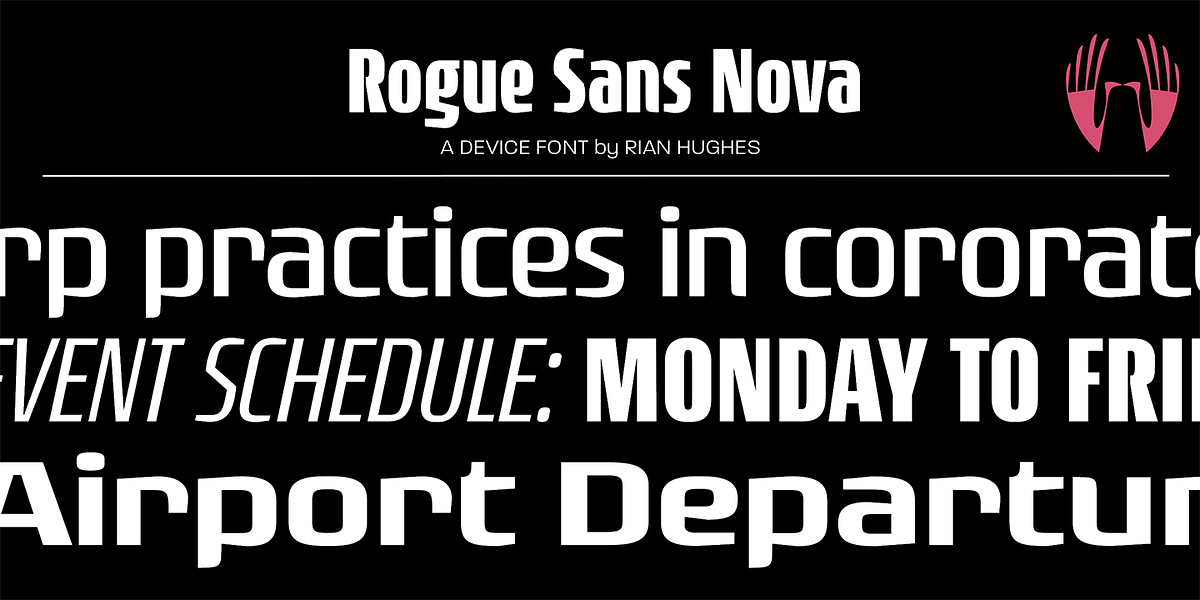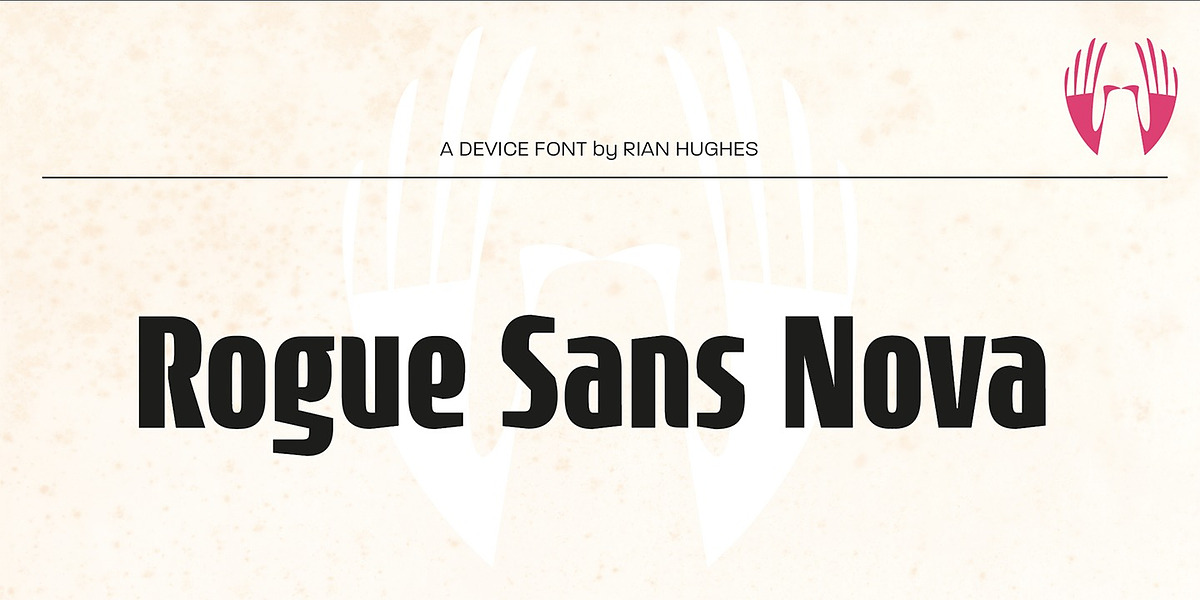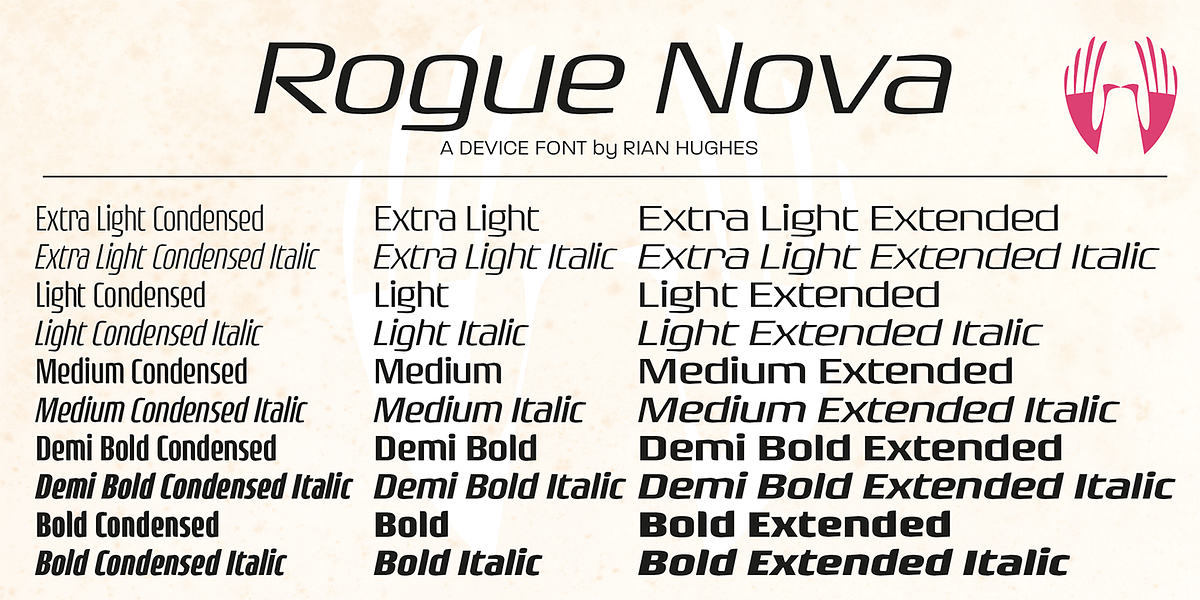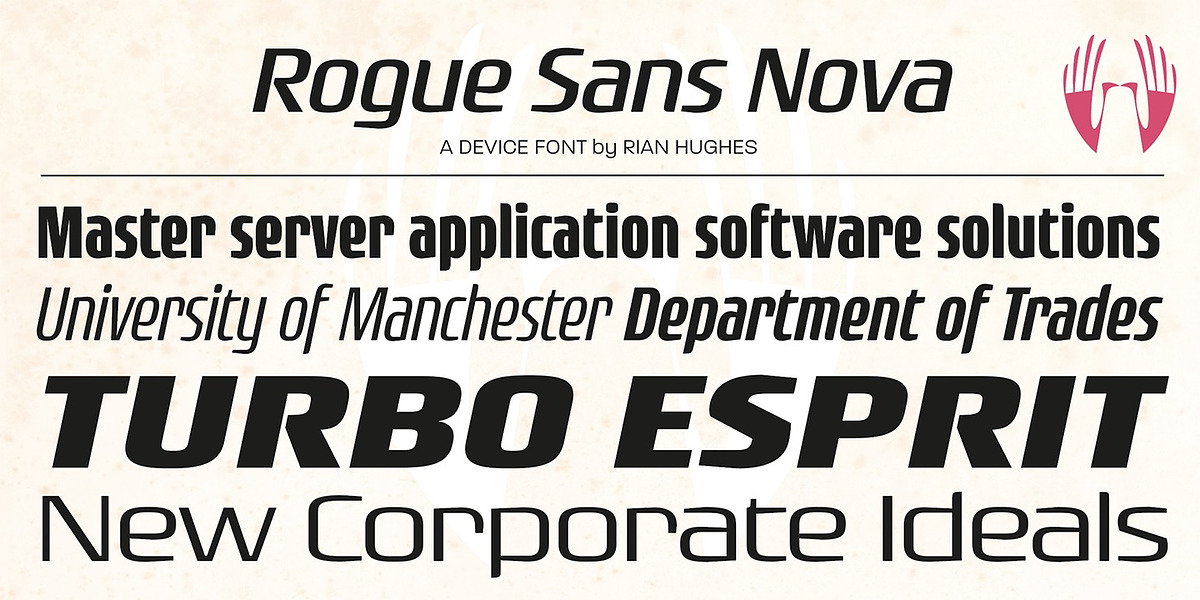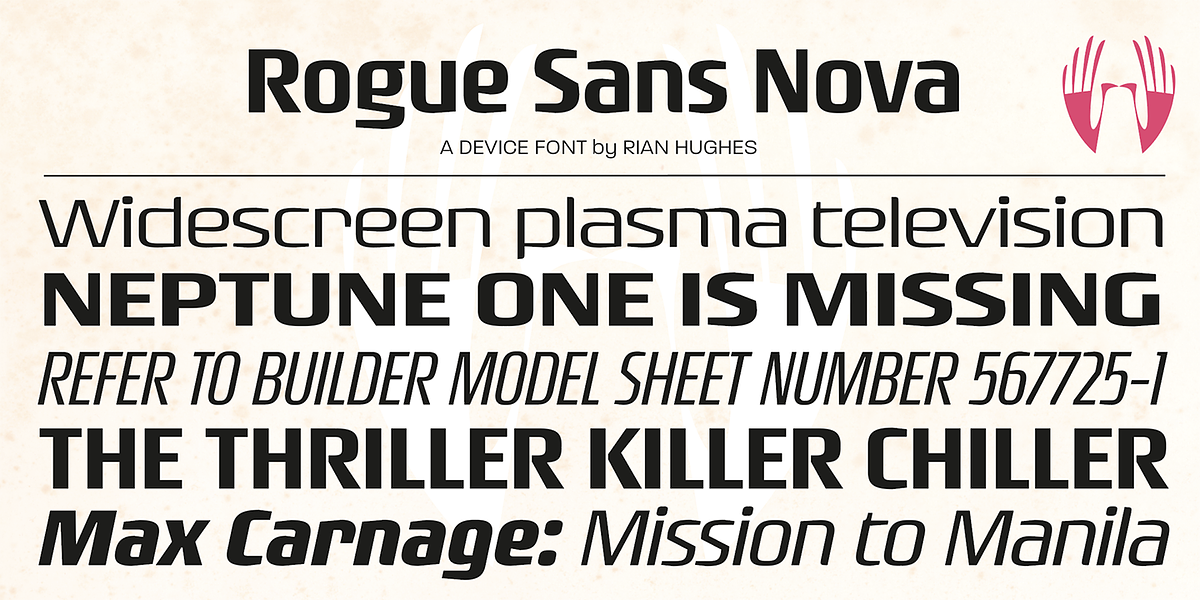
Rogue Sans Nova
Rogue Nova is a versatile geometric sans-serif font family designed for impact. Its sharp edges and contemporary style lend themselves well to headlines and branding applications. The extended family offers five weights, three widths, and includes italic variations.